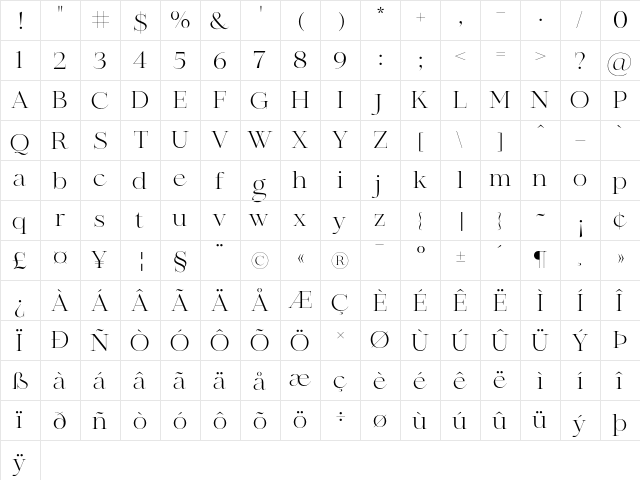
MADE Bon Voyage Regular
Design Context for MADE Bon Voyage Typeface
MADE Bon Voyage is a composed and adaptable typeface that performs quietly and consistently across a wide range of design contexts.
Pro Tip: Use MADE Bon Voyage in both headline and body roles to test its range before committing to a single application.